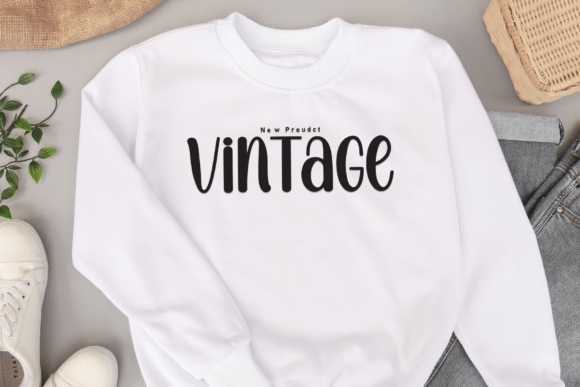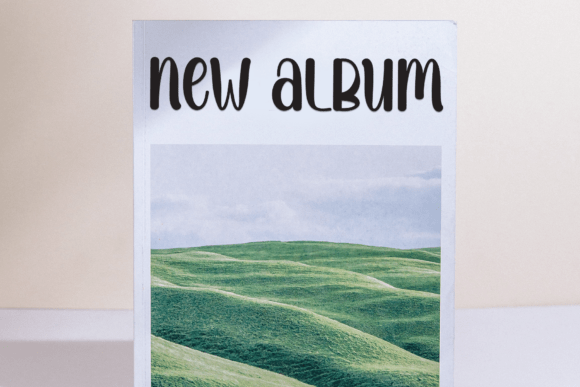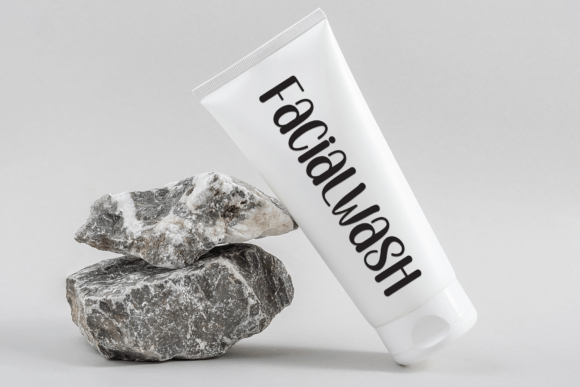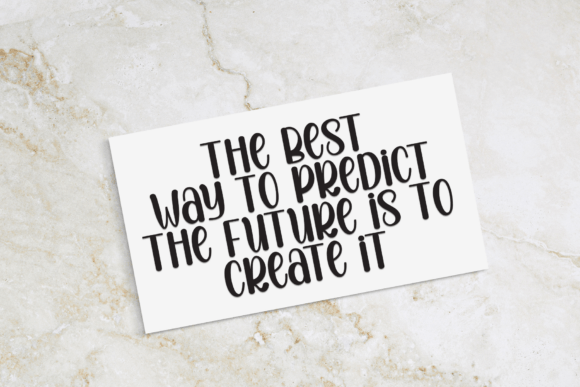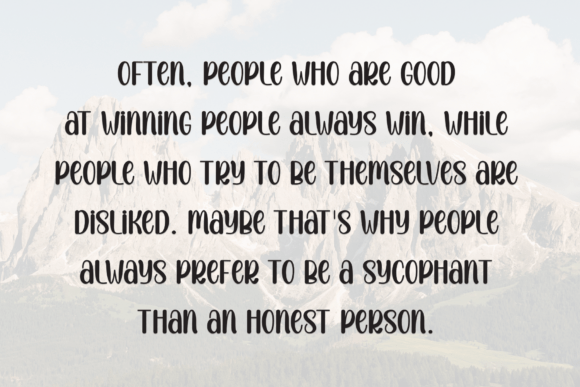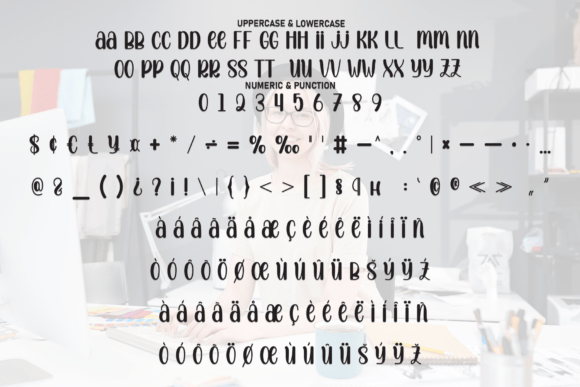
Introducing Designer Font: The Perfect Blend of Clarity and Casual Style
Are you tired of using fonts that are either too formal or too quirky? Look no further than the Designer Font, a neat and casual display font that strikes the perfect balance between clarity and approachability. With its clean lines, friendly letterforms, and balanced structure, this font is ideal for designers and crafters looking to add a touch of modernity and laid-back charm to their projects.
The Characteristics of Designer Font
Designer Font is a display font that boasts a unique blend of style and readability. Its clean lines and simple shapes make it easy to read, even at smaller sizes, while its friendly letterforms add a touch of warmth and approachability. The font’s balanced structure ensures that it remains legible and clear, even when used for longer blocks of text.
One of the standout features of Designer Font is its playful energy. The font has a lively, energetic feel that makes it perfect for designs that require a bit of personality and whimsy. Whether you’re working on a poster, a packaging design, or a branding project, Designer Font is sure to bring a smile to your audience’s face.
What Makes Designer Font So Versatile?
Designer Font is an incredibly versatile font that can be used for a wide range of design projects. Its modern yet laid-back vibe makes it perfect for:
- Headlines and titles: Add a touch of style and sophistication to your headlines with Designer Font’s clean lines and friendly letterforms.
- Posters and flyers: Create eye-catching posters and flyers that grab attention and convey your message with clarity and style.
- Packaging design: Add a touch of personality to your packaging designs with Designer Font’s playful energy and modern vibe.
- Branding and logos: Create a lasting impression with Designer Font’s unique blend of style and readability.
Why Choose Designer Font?
So why choose Designer Font over other fonts on the market? Here are just a few reasons:
- Readability: Designer Font is designed to be easy to read, even at smaller sizes. Its clean lines and simple shapes make it perfect for designs that require a clear and concise message.
- Style: Designer Font has a unique blend of modernity and laid-back charm that makes it perfect for designs that require a bit of personality and whimsy.
- Versatility: Designer Font can be used for a wide range of design projects, from headlines and titles to posters, packaging, and branding.
- Ease of use: Designer Font is incredibly easy to use, even for designers who are new to working with fonts.
Tips for Using Designer Font
Here are a few tips for getting the most out of Designer Font:
- Experiment with different sizes: Designer Font looks great at a wide range of sizes, from small headlines to large display text.
- Play with color: Designer Font looks great in a wide range of colors, from bold and bright to muted and pastel.
- Mix and match: Try pairing Designer Font with other fonts to create a unique and eye-catching design.
- Keep it simple: Don’t be afraid to keep things simple with Designer Font. Its clean lines and simple shapes make it perfect for designs that require a clear and concise message.
In conclusion, Designer Font is a versatile and stylish font that is perfect for designers and crafters looking to add a touch of modernity and laid-back charm to their projects. With its clean lines, friendly letterforms, and balanced structure, this font is ideal for a wide range of design projects, from headlines and titles to posters, packaging, and branding. So why not give Designer Font a try today and see the difference it can make in your designs?